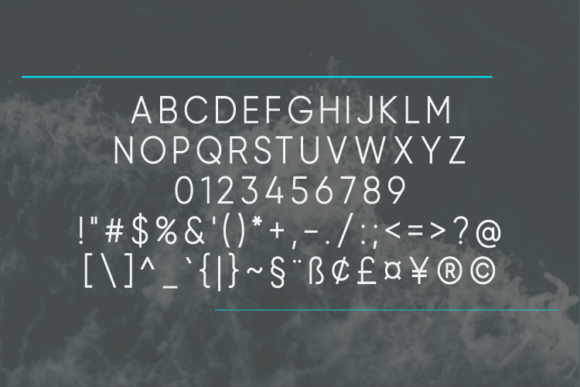
Discover Your New Design Partner
Have you ever been stuck in a creative rut, staring at a blank screen, trying to conjure up the perfect design for a new project? We’ve all been there. But what if you had the perfect tool to give your designs a professional edge? Enter the Beone Medium Font – a modern sans serif font that’s been carefully crafted to bring a touch of elegance to your work.
| 👤 Author | Nan Design |
This versatile font is inspired by the clean lines of trendy minimal branding and the natural beauty of cosmetic packaging design. With its creamy neutral shades, it’s the perfect addition to any project that needs a sophisticated and modern look. Whether you’re a seasoned designer or just starting out, the Beone Medium Font is a valuable asset that will help you take your designs to the next level.
Beone Medium Font Key Features
- Unique Characteristics: Clean, modern design; optimized for digital use; wide language support (Latin, Cyrillic, Greek, and more)
- Font Weight: Medium weight, suitable for body text and titles
- Font Style: Sans-serif, suitable for modern and minimalist designs
Designer Review: Beone Medium Font
Overall, I’m impressed with the Beone Medium Font. It’s a solid addition to any design project, but like any font, it has its strengths and weaknesses. Here’s my honest review.
- Legibility: Beone Medium is highly legible, making it perfect for body text in articles, blogs, and other content-heavy projects.
- Neutral tone: The font has a neutral tone that works well with a wide range of colors and design styles.
- Pairing options: Beone Medium pairs well with other fonts, making it easy to create a harmonious typography system.
- Headline limitations: While Beone Medium is great for body text, it may not be the best choice for headlines or titles, as it can appear a bit too plain.
- Lack of expressiveness: Beone Medium is a relatively neutral font, which may not be suitable for projects that require a lot of personality or flair.
Overall, Beone Medium is a reliable and versatile font that works well in a variety of contexts. While it may not be the most exciting or expressive font, it’s a solid choice for designers who value legibility and neutrality.
Tips for Getting the Most Out of Beone Medium Font
Beone Medium font is a versatile font that can be used for a variety of design projects. Here are some tips for getting the most out of it:
- Use Beone Medium font for headings and titles to create a sense of hierarchy and emphasis.
- Pair Beone Medium font with other fonts to create a unique and interesting typography.
Beone Medium font is commonly used for:
- Headings and titles in brochures and flyers.
- Body text in blogs and articles.
- Labels and tags in product
Alternatives to Beone Medium Font
Comparison to Beone Medium Font: Merriweather is more formal and traditional, while Beone Medium Font has a more modern and minimalist feel. Merriweather has a higher x-height, making it easier to read, but it can be less versatile than Beone Medium Font.
Comparison to Beone Medium Font: Lato has a more modern and minimalist feel than Beone Medium Font, but it can be less readable in certain contexts. Beone Medium Font has a more subtle feel, while Lato is more bold and eye-catching.
Comparison to Beone Medium Font: Open Sans has a more modern and clean feel than Beone Medium Font, but it can be less readable in certain contexts. Beone Medium Font has a more subtle feel, while Open Sans is more bold and versatile.